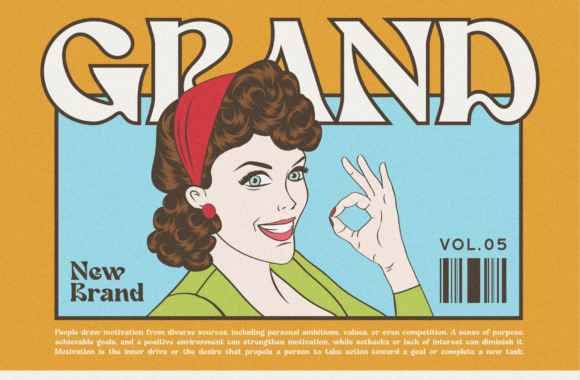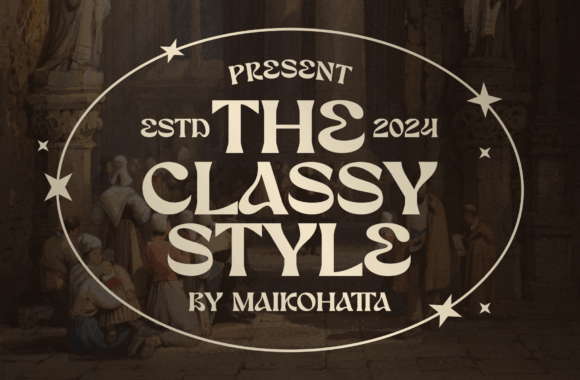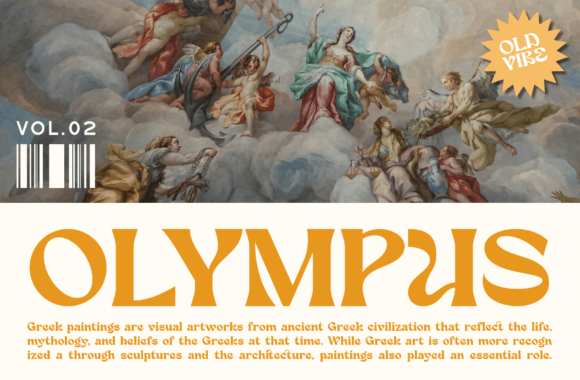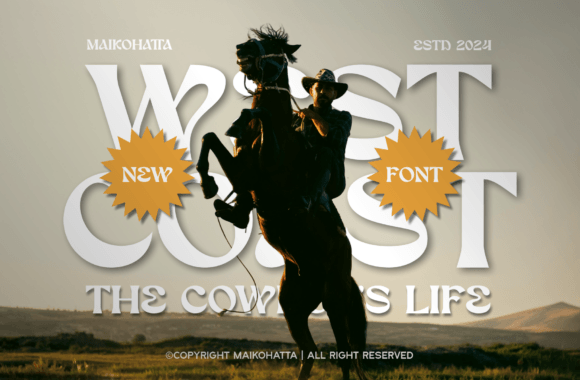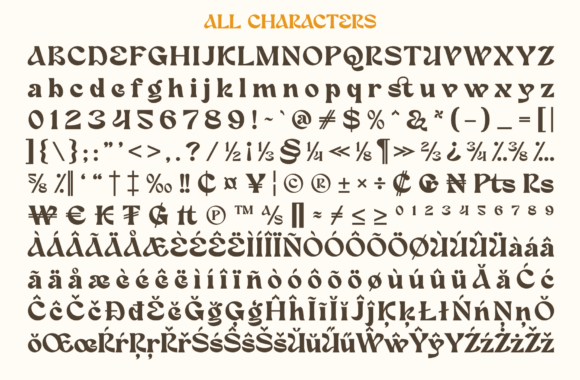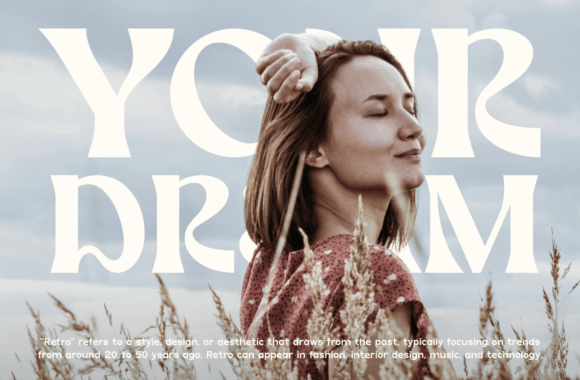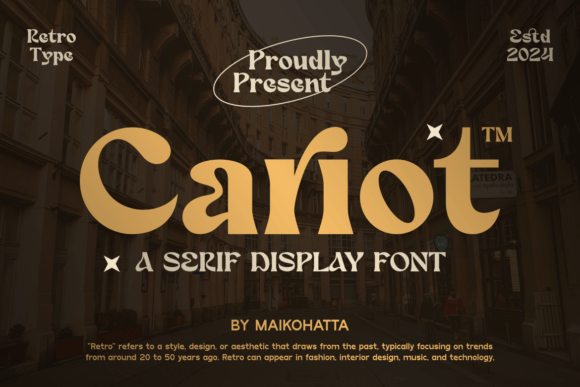
Introducing Cariot: The Ultimate Serif Display Font for Modern Design
In the world of typography, a well-crafted font can elevate a design from ordinary to extraordinary. We’re excited to introduce Cariot, a stunning serif display font that embodies the perfect balance of style, sophistication, and readability. With its unique blend of bold and delicate lines, Cariot is poised to become a go-to choice for designers and crafters seeking to make a lasting impression.
The Characteristics of Cariot
Cariot is a modern serif font that boasts a distinctive character, defined by its balanced proportion of stroke thickness and fineness. This thoughtful design creates attractive and easy-to-read visuals, making it an excellent choice for a wide range of applications, from headings and titles to logos and branding materials.
One of the standout features of Cariot is its bold distinction between thick and thin lines. This classic serif style provides a touch that is understated yet still manages to stand out in a crowded design landscape. The result is a font that exudes confidence and sophistication, perfect for designers seeking to add a touch of elegance to their work.
The Benefits of Using Cariot
So, what sets Cariot apart from other serif fonts on the market? Here are just a few benefits of using Cariot in your designs:
• Improved Readability: Cariot’s carefully crafted letterforms ensure that your text is easy to read, even at smaller sizes.
• Enhanced Visual Appeal: The font’s bold and delicate lines create a visually striking effect, adding depth and interest to your designs.
• Versatility: Cariot is suitable for a wide range of applications, from print materials to digital platforms.
• Unique Character: Cariot’s distinctive style ensures that your designs stand out from the crowd, making it an excellent choice for brands seeking to establish a strong visual identity.
Who Can Benefit from Cariot?
Cariot is an excellent choice for a variety of designers and crafters, including:
• Graphic Designers: Cariot is perfect for creating stunning headings, titles, and logos that require a touch of sophistication.
• Branding Experts: The font’s unique character and versatility make it an excellent choice for establishing a strong visual identity.
• Web Designers: Cariot’s readability and visual appeal make it an excellent choice for digital platforms, including websites and social media.
• Crafters: Cariot is also suitable for crafters, including those who enjoy lettering, calligraphy, and other forms of hand-lettered art.
Tips for Using Cariot Effectively
To get the most out of Cariot, here are a few tips to keep in mind:
• Experiment with Font Sizes: Cariot is designed to be versatile, so don’t be afraid to experiment with different font sizes to achieve the desired effect.
• Pair with Complementary Fonts: Cariot pairs well with a range of fonts, so try combining it with complementary fonts to add depth and interest to your designs.
• Pay Attention to Line Spacing: To ensure optimal readability, make sure to adjust line spacing accordingly, especially when using Cariot at smaller sizes.
In conclusion, Cariot is a stunning serif display font that offers a unique blend of style, sophistication, and readability. With its bold and delicate lines, Cariot is poised to become a go-to choice for designers and crafters seeking to make a lasting impression. Whether you’re a graphic designer, branding expert, web designer, or crafter, Cariot is an excellent addition to your typographic arsenal.